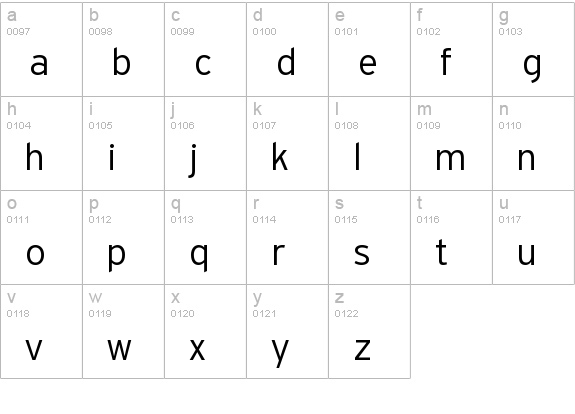
PFHighwaySansPro-Light is a refined, elegant variant in the PFHighwaySansPro typeface family \xE2\x80\x94 well suited to elegant body text, refined sub-headings, and luxury branding.
PFHighwaySansPro-Light is a modern and sleek sans-serif font that exudes elegance and sophistication. With its clean lines and minimalistic design, this font is perfect for a wide range of design projects, from branding to editorial design. The light weight of the font gives it a delicate and airy feel, making it ideal for conveying a sense of modernity and freshness. The best part? PFHighwaySansPro-Light is completely free to download at FontsMarket.com. Whether you're a designer looking to add a touch of style to your work or a business owner in need of a sleek and professional font for your branding, PFHighwaySansPro-Light is the perfect choice. Don't miss out on this amazing opportunity to elevate your designs with this stunning font – download it for free today at FontsMarket.com!